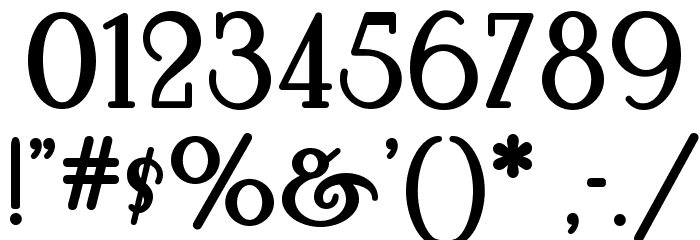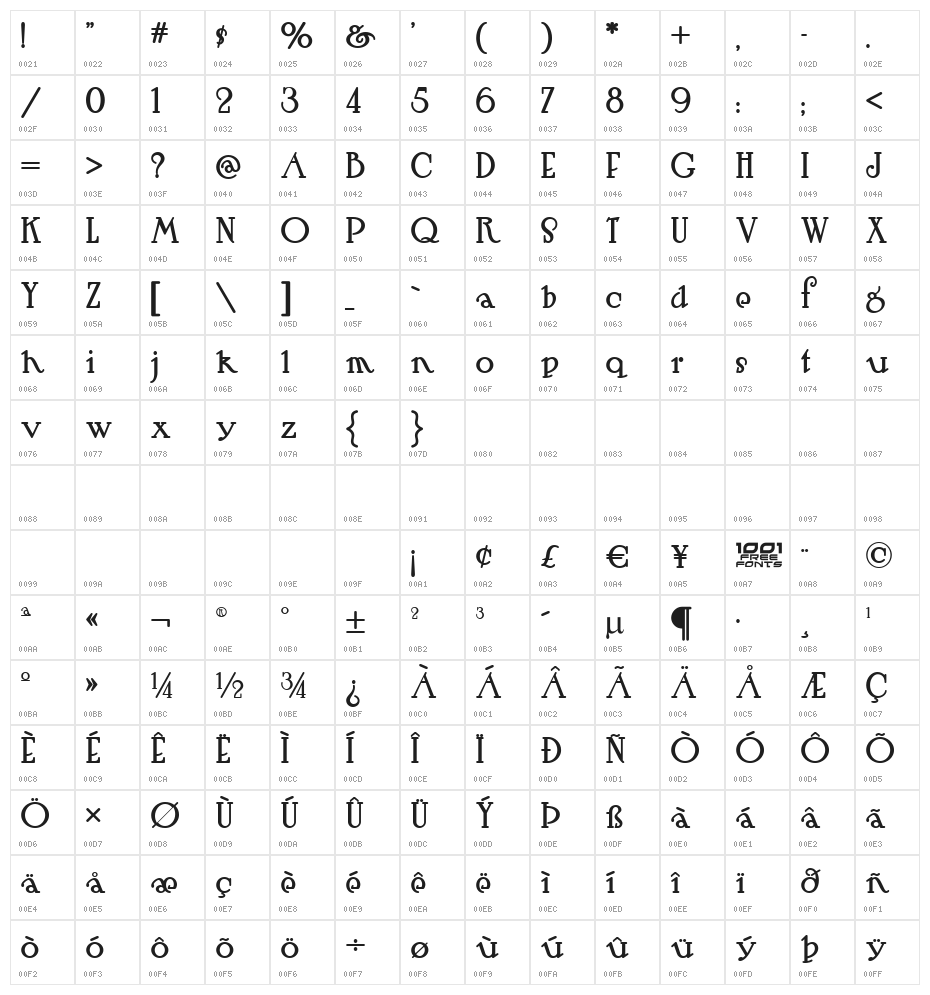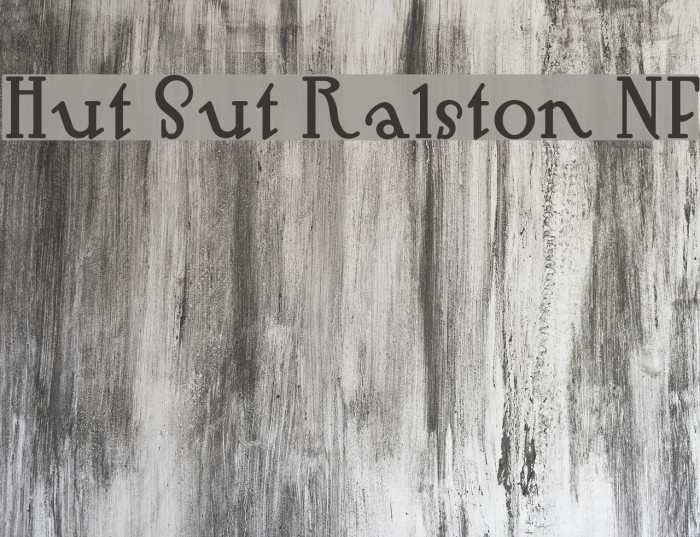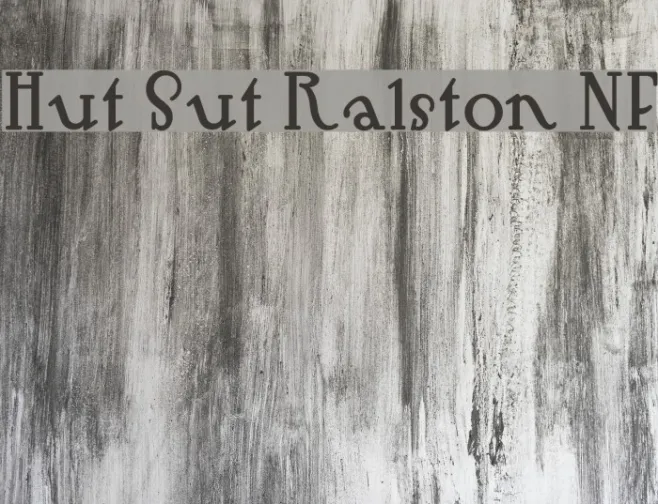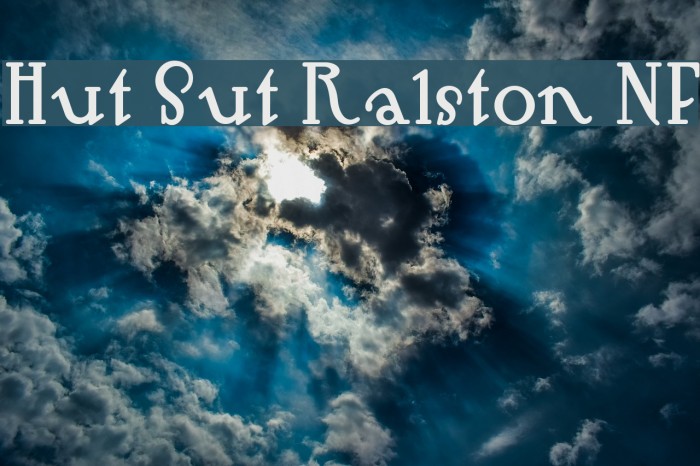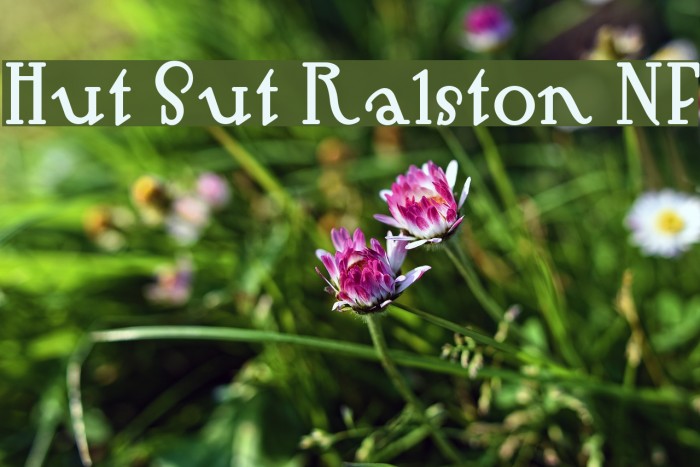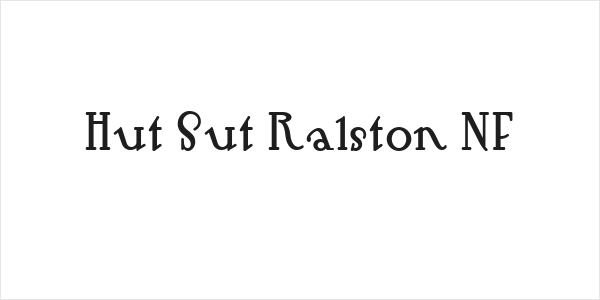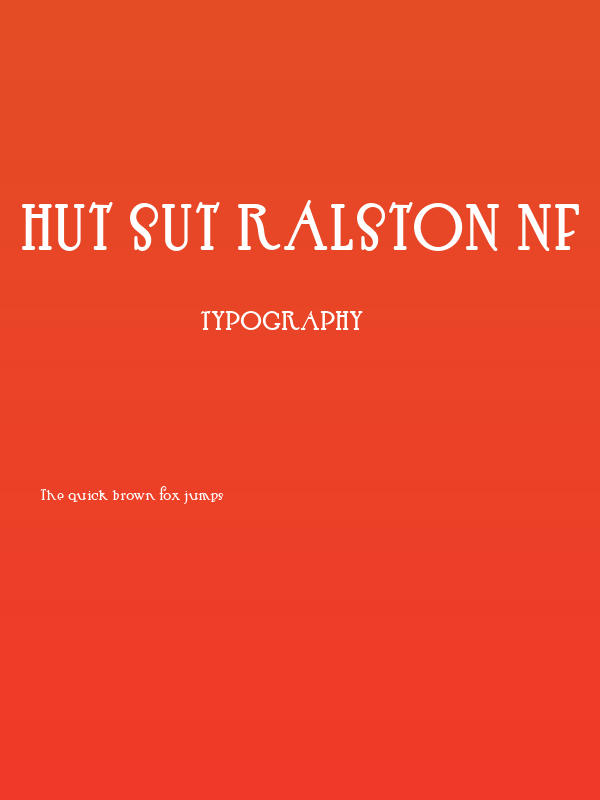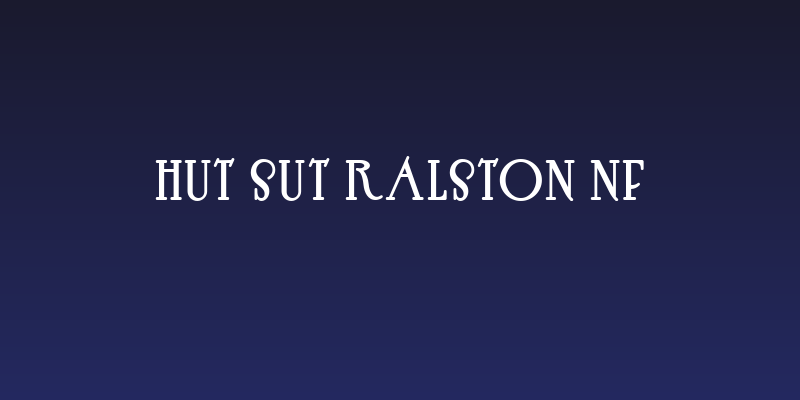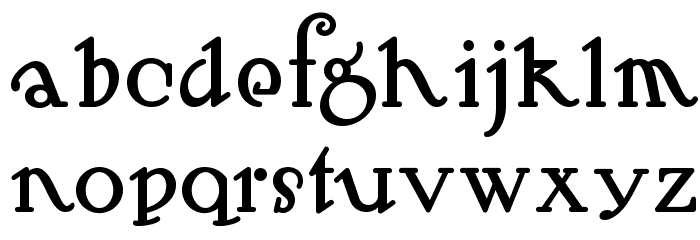
Hut Sut Ralston NF Font
Hut Sut Ralston NF Description
This font features a playful and whimsical design with a vintage flair. The uppercase letters are characterized by their elegant curves and subtle serifs, giving them a classic yet quirky appearance. The lowercase letters maintain a consistent style, with unique flourishes that add personality and charm. The numerals are bold and clear, ensuring readability while maintaining the font's distinctive style. Special characters are well-integrated, featuring similar curves and details that complement the overall aesthetic. This font's unique style makes it suitable for creative and artistic projects.
| Use Case | Headlines, Logos, Artistic projects |
| Proposed Projects | Ideal for vintage-themed designs, playful branding, artistic posters, and creative invitations. |